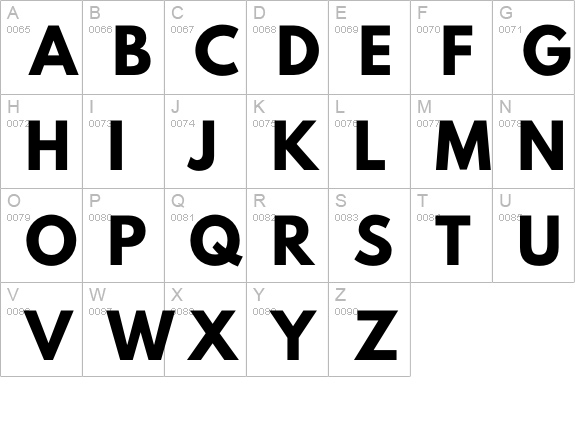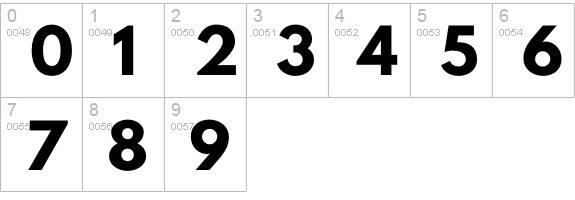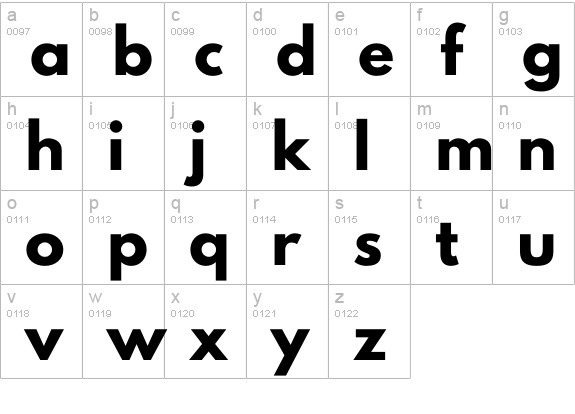
Introducing Poland Can Into Big Writings font, a visually captivating typeface that effortlessly combines elegance and boldness. This font is designed to make a powerful statement, delivering a striking impact to any creative project it graces. With its clean lines and distinct characters, Poland Can Into Big Writings font captures attention and commands authority. Its versatility allows it to be used in various design applications, from logos and branding to headlines and posters. Whether you're looking to add a touch of sophistication or create a visually captivating masterpiece, this font is sure to exceed your expectations. But what sets this font apart is its accessibility. Poland Can Into Big Writings font is freely available to download at FontsMarket.com, making it an excellent choice for both personal and commercial projects. This means you can unleash your creativity without worrying about breaking the bank. So why wait? Experience the power of Poland Can Into Big Writings font and let your designs make a lasting impression. Download this font today and discover the endless possibilities it offers.